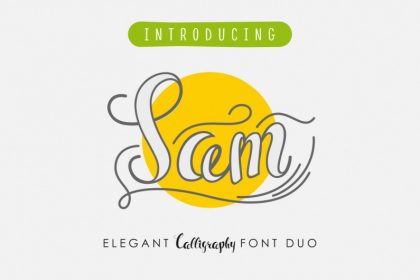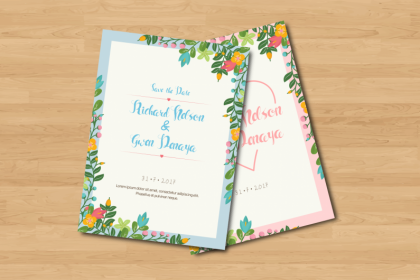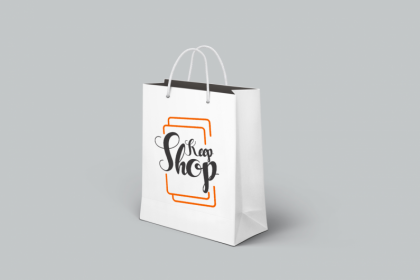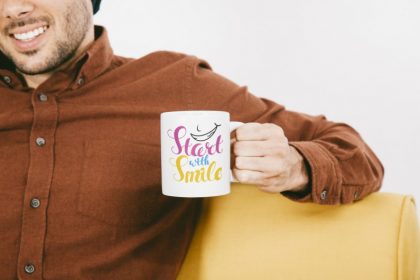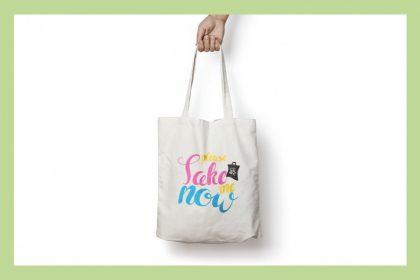
Sam Script Font
Hello Again guys! Introducing Sam Script Font. This is not just another hand lettering brush and pen font. This is an unusual awesome font which was made by hand by one of our talented Artist in 2017. This font can be used in daily basis. From poster to invitation, to signage or billboard. SAM will also be great for music label cover, branding, packaging food or stationery. This will also great for merchandise : mug, shirt, etc